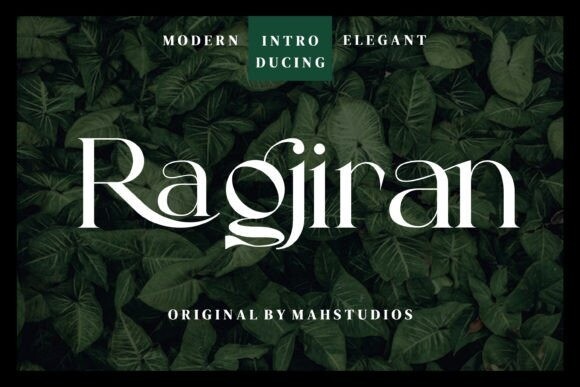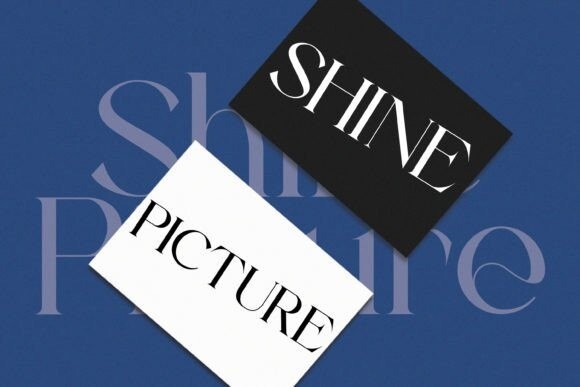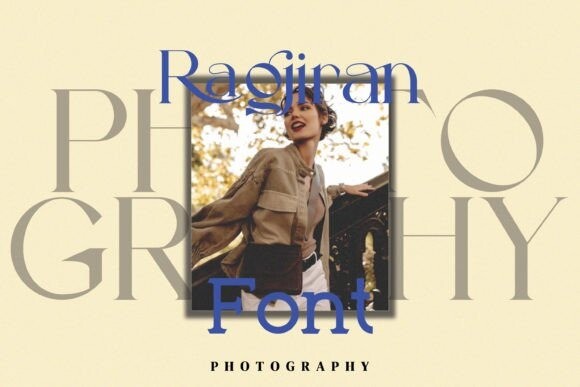
Ragjiran Font
Ragjiran is a modern and elegant serif font. No matter the topic, this font will be an incredible asset to your fonts’ library, as it has the potential to elevate any creation. Ragjiran is PUA encoded which means you can access all the glyphs and ligatures with ease!